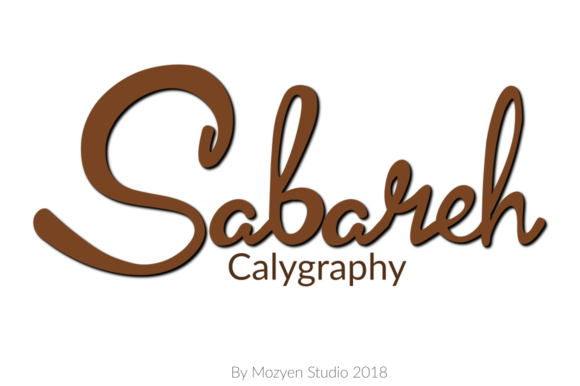
Sabareh: A Creative Font for Web Design
As a web designer, I’m always on the lookout for fonts that bring personality to a site without sacrificing usability. Sabareh, a script font from the Script Amp collection, caught my eye with its playful, flowing style. Inspired by jelly, it has a soft, whimsical feel that can add a touch of elegance or fun to any digital project.
Testing Sabareh in a Hero Section
I started by testing Sabareh in a hero section of a boutique online store. The font’s fluid curves and gentle swashes made it perfect for a headline that needed to stand out. It paired beautifully with a clean sans serif for the subtext, creating a visual balance that felt modern yet approachable. On desktop, the font rendered smoothly, and on mobile, it remained legible even at smaller sizes.
The font’s unique character added a sense of movement to the page, making the call-to-action button pop without overwhelming the design. It worked especially well when placed over an image banner, where its lightness didn’t compete with the background but still commanded attention.
Using Sabareh in Call-to-Action Elements
I then tried using Sabareh in a CTA button for a product landing page. The font’s decorative nature made it ideal for short phrases like “Shop Now” or “Learn More.” When paired with a bold color, it created a strong visual impact while maintaining readability. The font’s alternates and ligatures gave me flexibility to adjust the look slightly for different sections of the site.
For buttons, I found that keeping the text short was key. Long phrases could become too busy, especially on smaller screens. But for concise labels, Sabareh delivered a fresh, creative tone that felt just right for a brand aiming to stand out.
Pairing Sabareh with Clean Fonts
One of the strengths of Sabareh is how well it pairs with simpler typefaces. I tested it alongside a basic sans serif for body copy and found that the contrast enhanced the overall design. The script font became a highlight, drawing the eye to important headings and titles, while the clean font provided clarity and structure to the rest of the content.
This pairing also helped maintain accessibility. The body text remained easy to read, and the script font wasn’t used in areas where legibility might be compromised. For example, in form labels or navigation menus, a more straightforward font would have been better suited.
Applying Sabareh to Digital Branding
Sabareh also shined in a digital brand kit for a creative coaching business. It was used in the logo, social media headers, and email templates. The font’s soft, flowing lines gave the brand a friendly, professional vibe that aligned with the services offered.
In email designs, Sabareh worked well as a header font. It added a personal touch without being too ornate. I made sure to test it across different email clients and devices, and it maintained its charm and clarity on all platforms.
Considerations for Web Use
While Sabareh is highly versatile, there are some limitations to keep in mind. It’s not ideal for long paragraphs of text. In body copy, it could make reading difficult, especially on small screens or in dense layouts. For those cases, a more traditional serif or sans serif font would be a better choice.
Another thing to consider is webfont performance. Sabareh, like many script fonts, can have larger file sizes. If you’re using it extensively, it’s worth checking how it affects page load times. Optimizing the font files or limiting its use to key elements can help maintain a fast, smooth user experience.
Finally, I recommend exploring the font’s weights and alternates before implementing it. These variations can give you more control over the final look and help you tailor the font to your specific design needs.
Conclusion
Sabareh is a standout font for web designers looking to add a creative edge to their projects. Its elegant, flowing style makes it perfect for headlines, CTAs, logos, and other display elements. When used thoughtfully and paired with simpler fonts, it can elevate a site’s visual appeal without compromising readability or usability.
Whether you're designing a portfolio, an online store, or a marketing campaign, Sabareh offers a fresh, expressive option that brings a unique personality to your digital work.